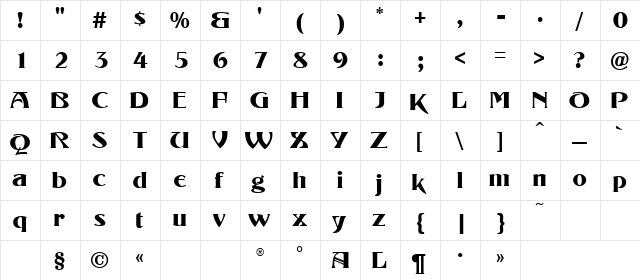
Konrad-Modern Regular
| Foundry | Gophmann A.L. |
| Designer | Gophmann Alexandra Leopoldovna |
| Year | 1970 |
Design Context for Konrad-Modern Typeface
Konrad-Modern is a composed and adaptable typeface that performs quietly and consistently across a wide range of design contexts.